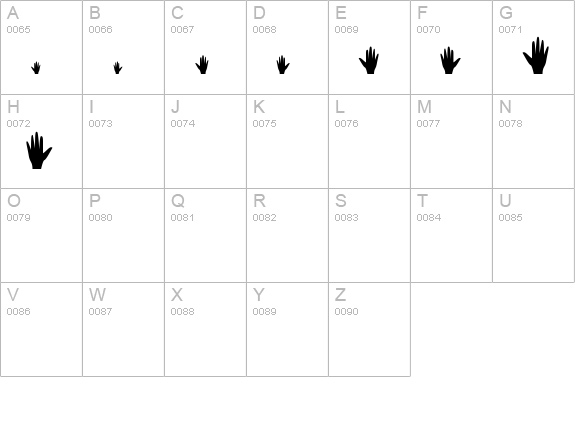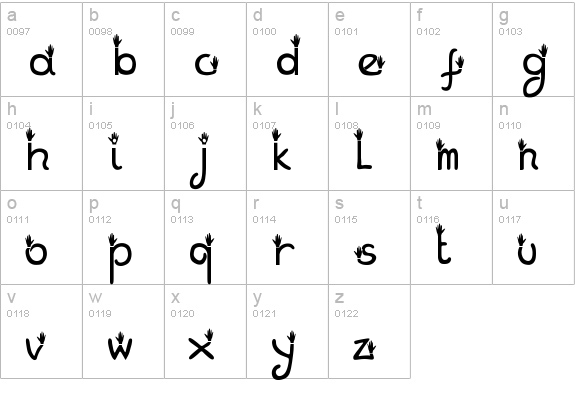
Hands Font Details
Hands font is a captivating and versatile typeface that exudes creativity and uniqueness. With its elegant and intricate letterforms, this font is perfect for adding a touch of handcrafted charm to any project. Whether you're designing a logo, creating a poster, or crafting a personalized invitation, Hands font will effortlessly enhance your work with its artistic flair. One of the standout features of Hands font is its wide range of stylistic alternates and ligatures, allowing you to create countless variations and tailor the font to suit your specific needs. Its fluid and organic strokes give it a delightful handwritten appearance, making it ideal for projects that require a personal and authentic touch. What makes Hands font even more appealing is that it is available for free download at FontsMarket.com. This means that you can easily access and utilize this stunning typeface without breaking the bank. Whether you're a professional designer or a hobbyist, the accessibility of Hands font ensures that anyone can elevate their designs with this beautiful and expressive font. Don't miss out on the opportunity to add a touch of elegance and handcrafted authenticity to your next project. Download Hands font today from FontsMarket.com and unleash your creativity with this versatile and visually captivating typeface.